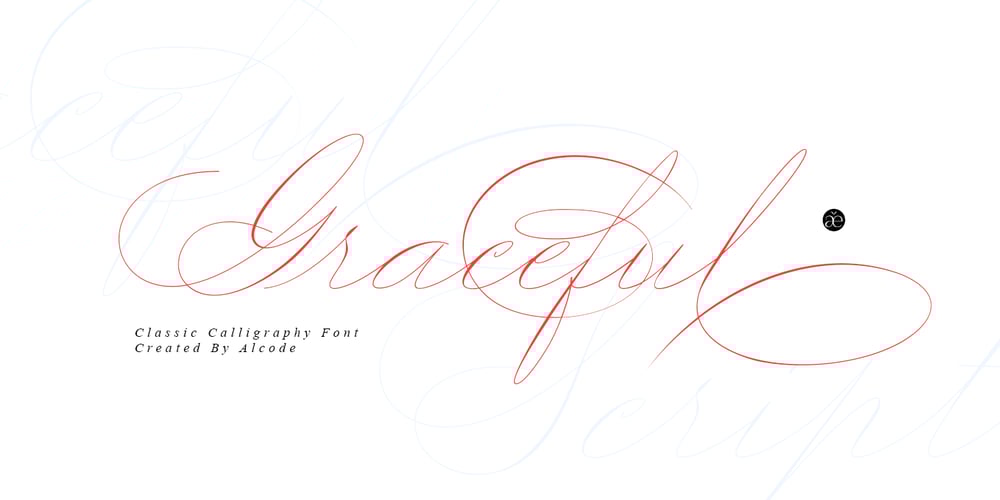
Graceful Font Family was designed by Sukjana Almunandar and published by Alcode. Graceful contains 1 styles and family package options. Graceful is a classic font, I built it with my relaxed hands, designing a classic font with modern elements in it, which makes it particularly suitable for wedding media, book covers, greeting cards, logos, branding, business cards and certificates, in fact for any design work that requires a classic, formal and luxury feel. Try Graceful, enjoy the richness of OpenType features and let her fun and elegant excitement make you happy and enhance your creativity! You can use this font very easily.